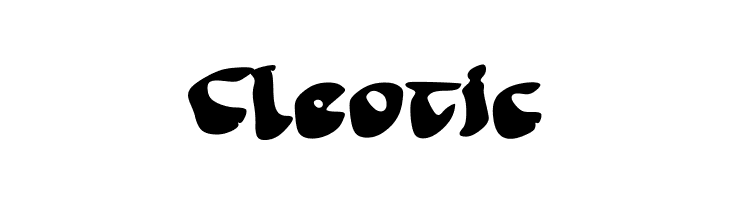
A playful, bold font with rounded, irregular shapes and a whimsical style.
A bold, artistic font with irregular, hand-drawn shapes and thick strokes.
A bold, cloud-like font with rounded, irregular edges and a playful, whimsical style.
A bold, playful font with rounded, cartoonish characters.
A bold, hand-drawn font with thick, uneven strokes and a dynamic style.